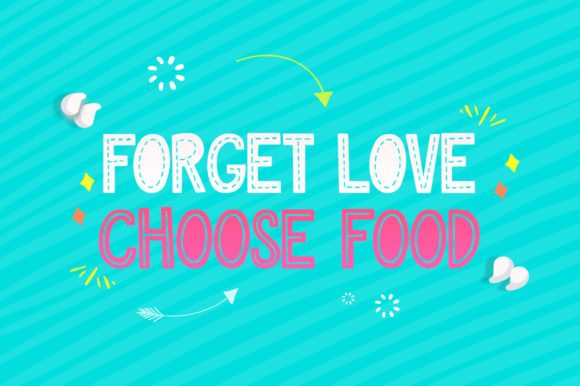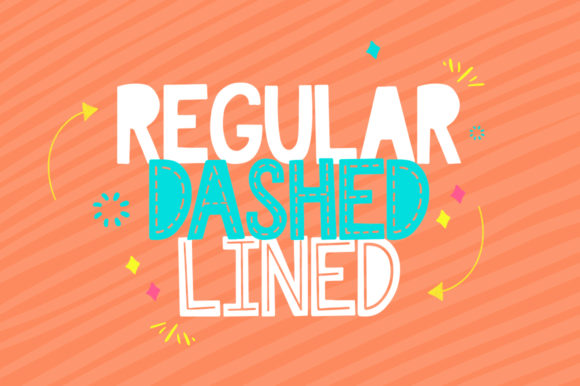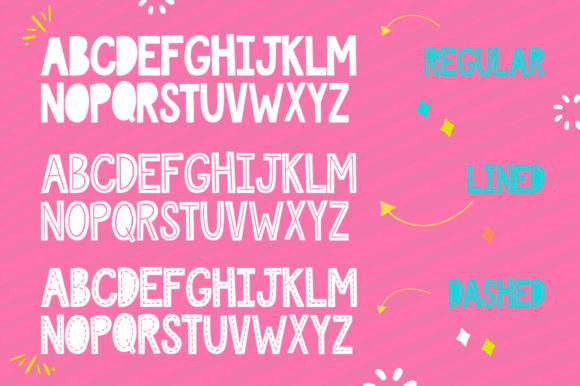
Introduction to Love Sucks Font Trio Font
Love Sucks is a font trio with regular, lined, and dashed styles that can be combined to create uniquely modern designs.
Get inspired by its exciting look & feel .
Key Features of Love Sucks Font Trio Font